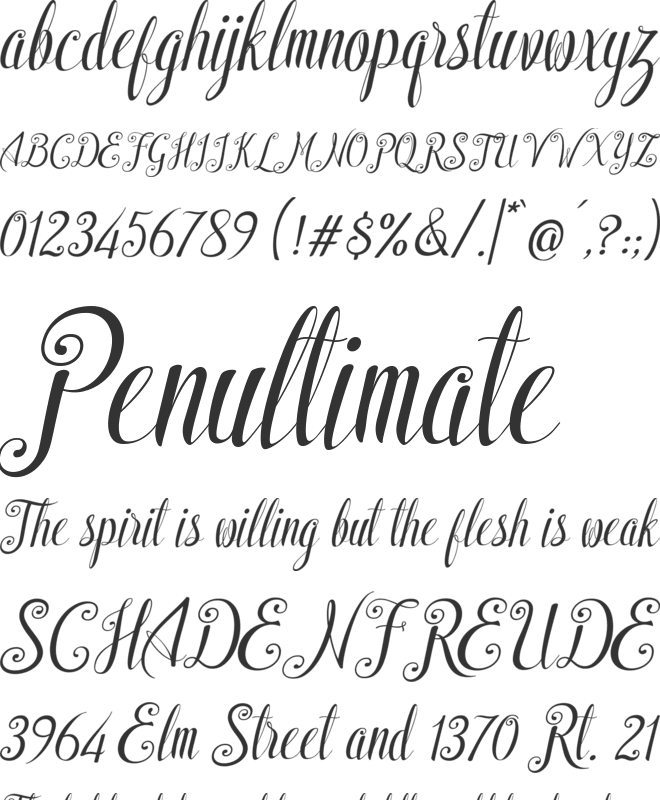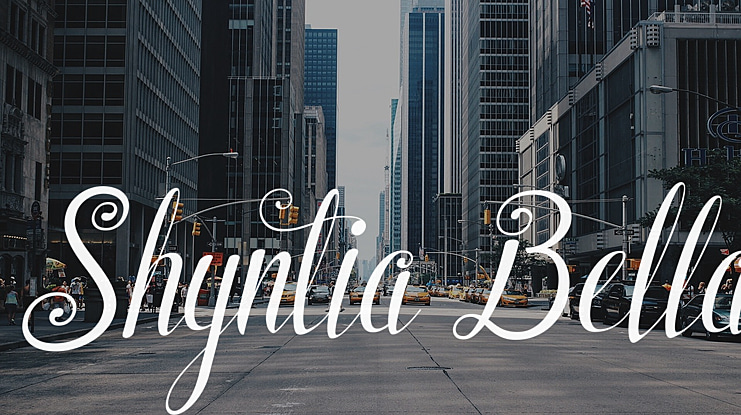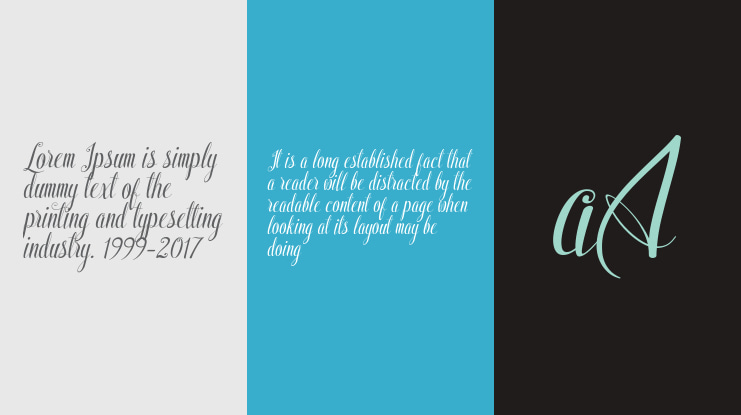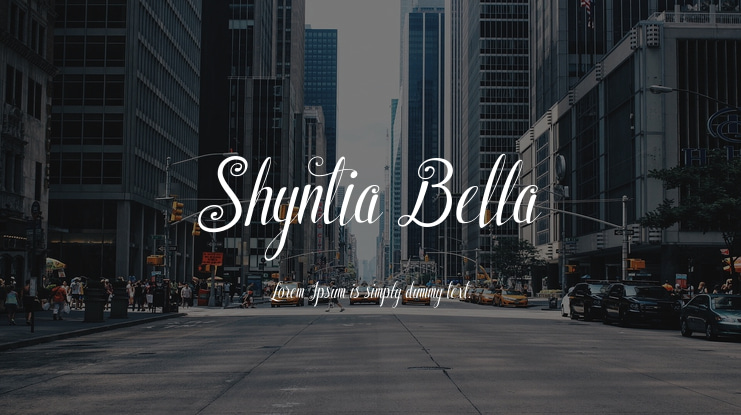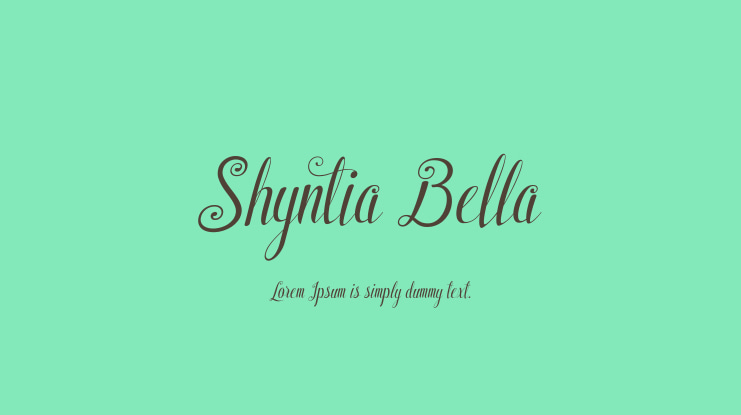
Shyntia Bella Font
Introducing my new cute and playful script, with natural and dynamically handmade touch. This font have hundreds swashy character to make your text look nice for wedding invitation card.
Features:
- This font contain 1.300 glyphs and supported to basic Latin character and eastern Europe language. - To avoid of difficulty of use alternate character, I feature it with so many shortcut to make access alternate character be so fast and easy! (Activate Contextual Alternates feature)   - This font also featured with PUA encode, so it can be accessed with software who not supported to Opentype (Cricut, Silhouette, etc). (Use character Map for WIndows OS, use Font Book for Mac OS). For fastest and most easy to acces alternate character, please make sure you use Opentype supported software such as Adobe Illustrator, InDesign, Photoshop, Corel Draw X6-X7   More...